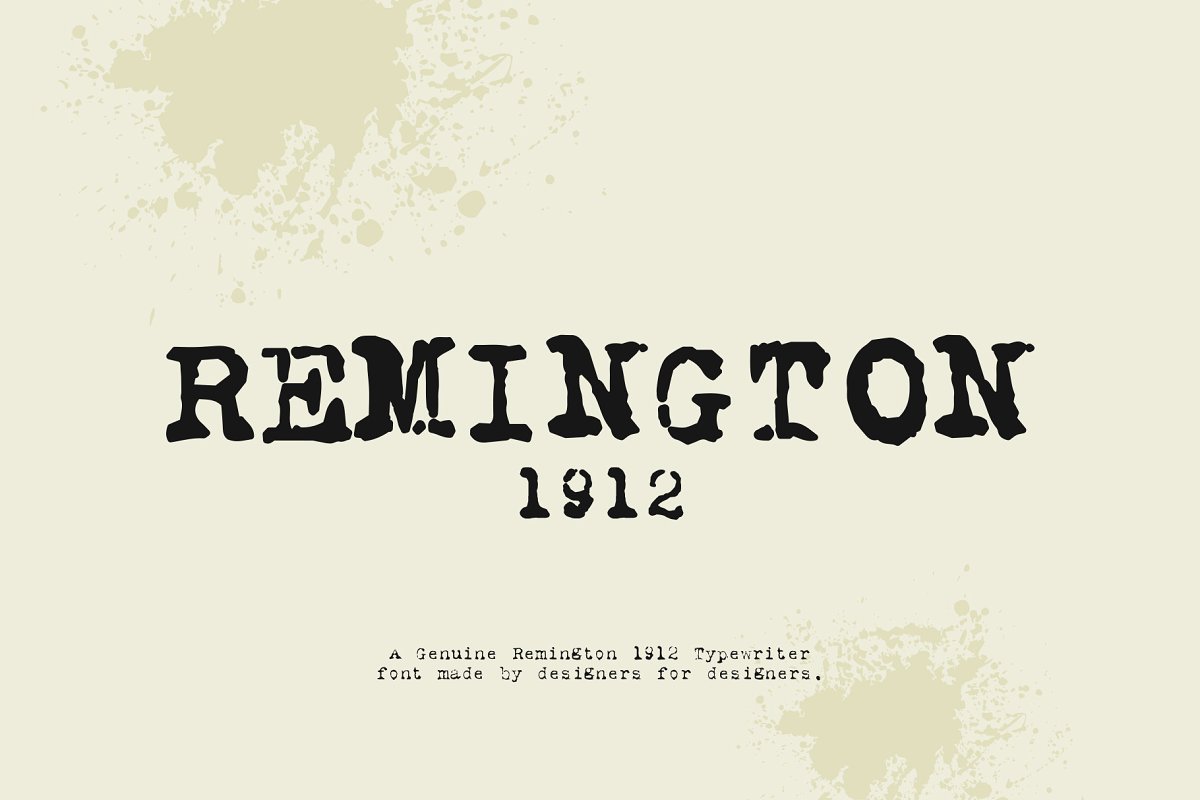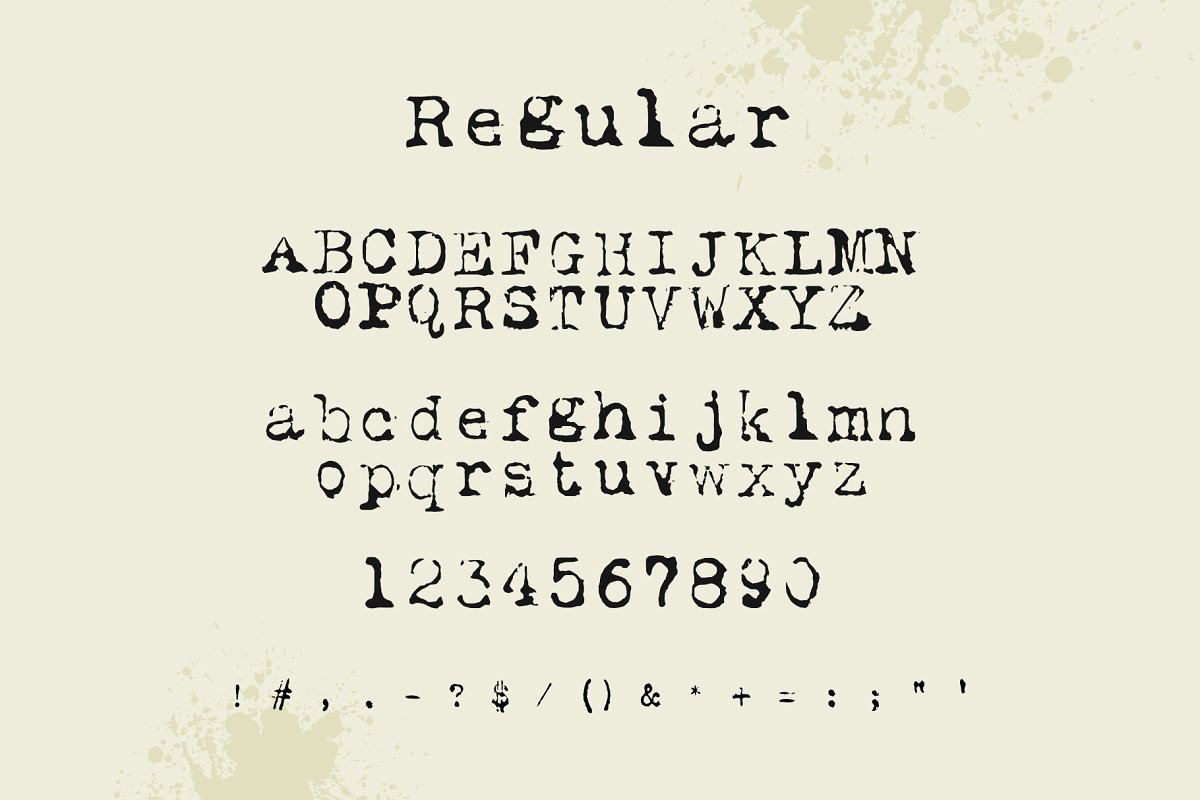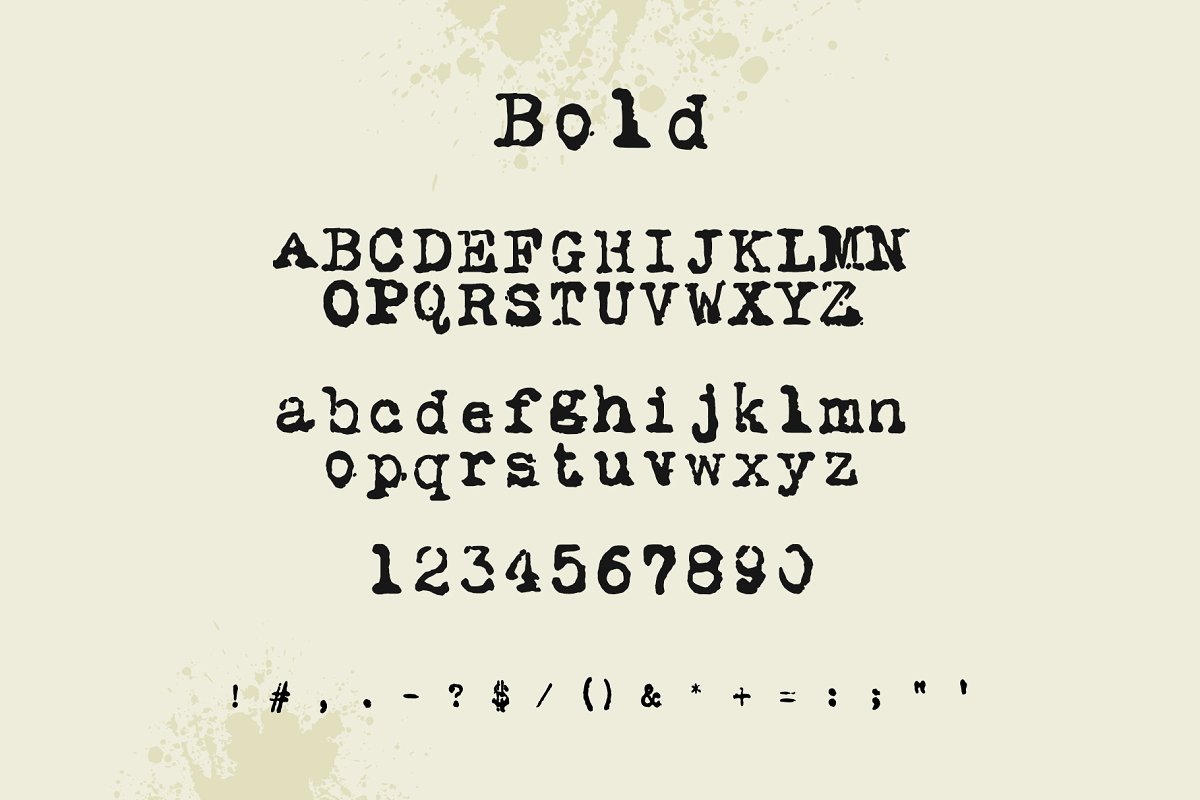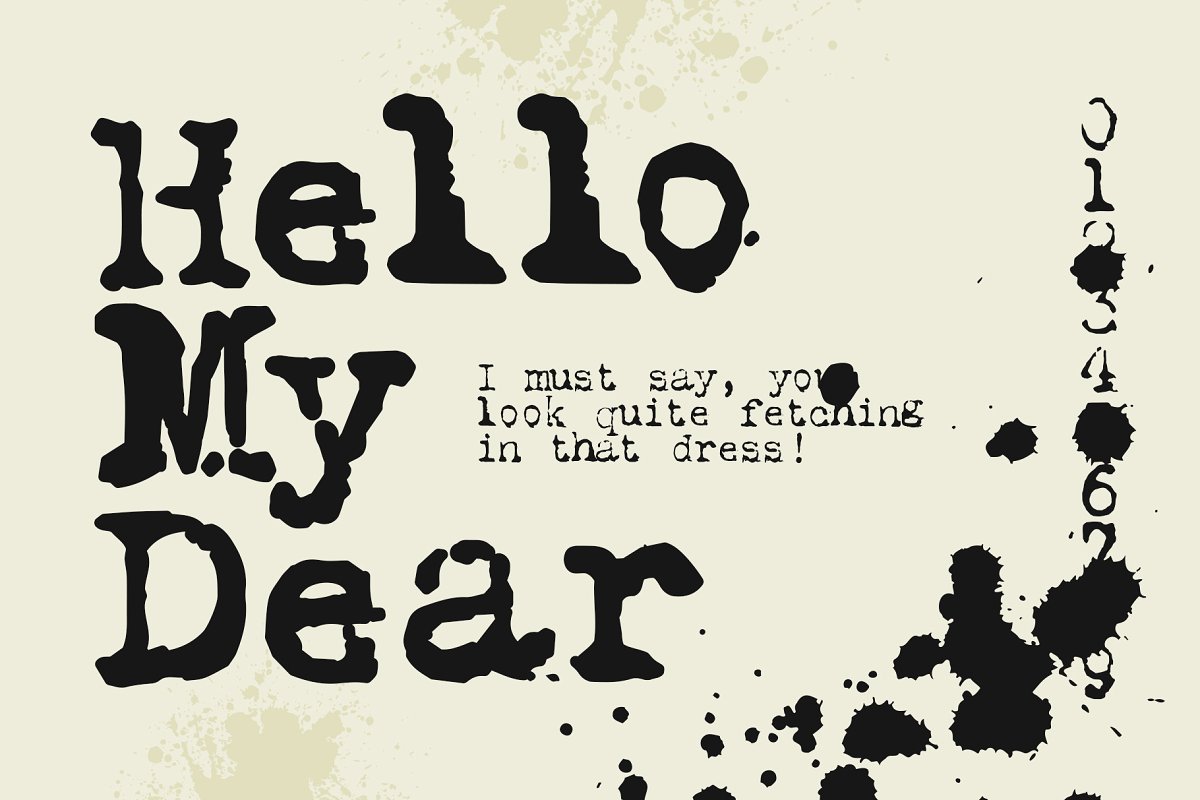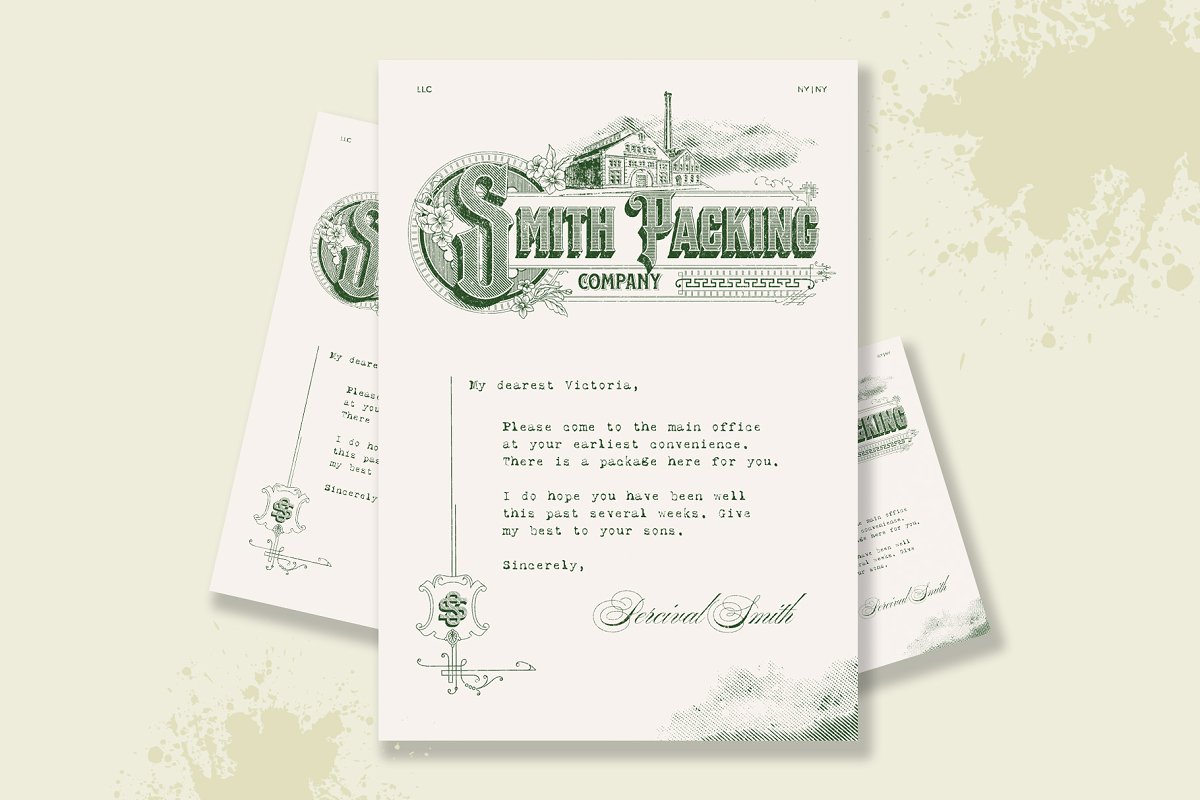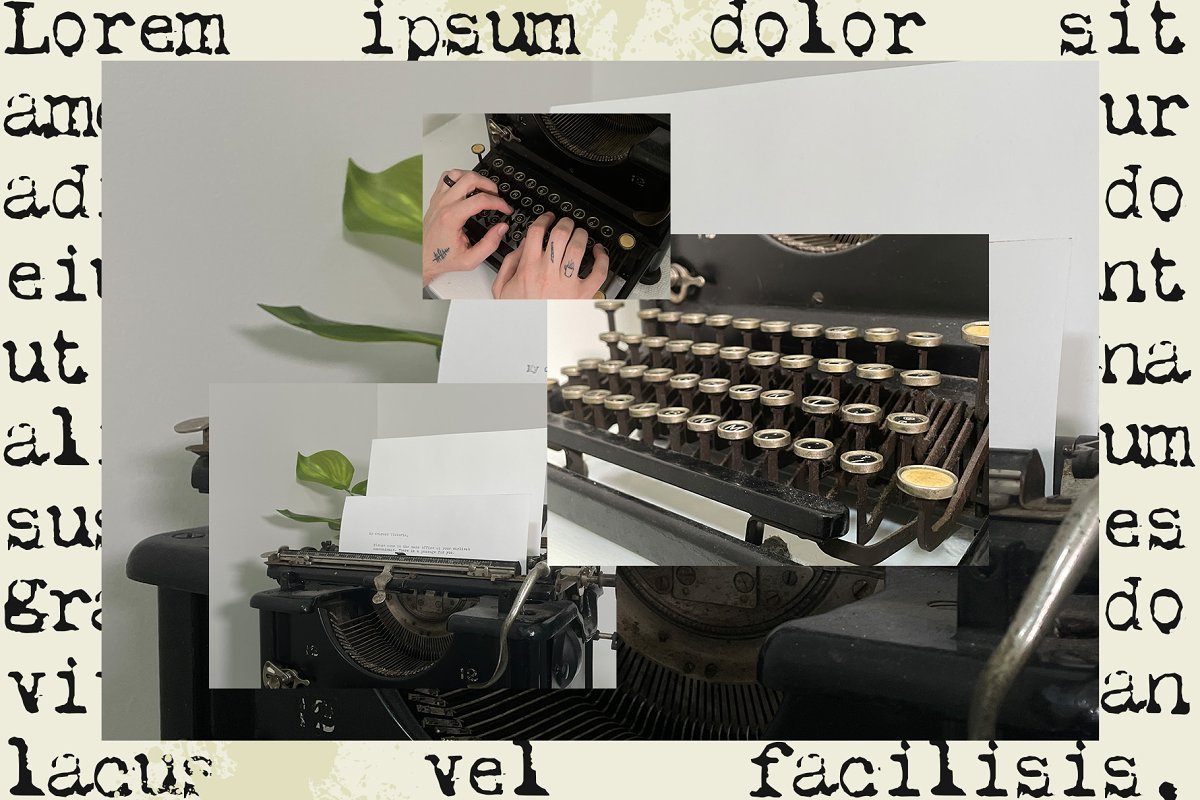
Remington 1912 Typewriter Font Free Download
About the Remington 1912 Typewriter Font
A genuine typewriter font based off of my old 1912 Remington typewriter (as you can see in the images), We typed out each character and scanned it in to keep as much of the worn out style as possible, Afterwards, we created a bolder version of the font for headline style use, to accurately portray what the typewriter might have looked like with new ink
Keep in mind that the typewriter is over 100 years old, so the disfiguration and worn out look of the letters is intentional, and you can really create some authentic vintage style graphics, In this download you will receive 2 weights for this font: regular and bold